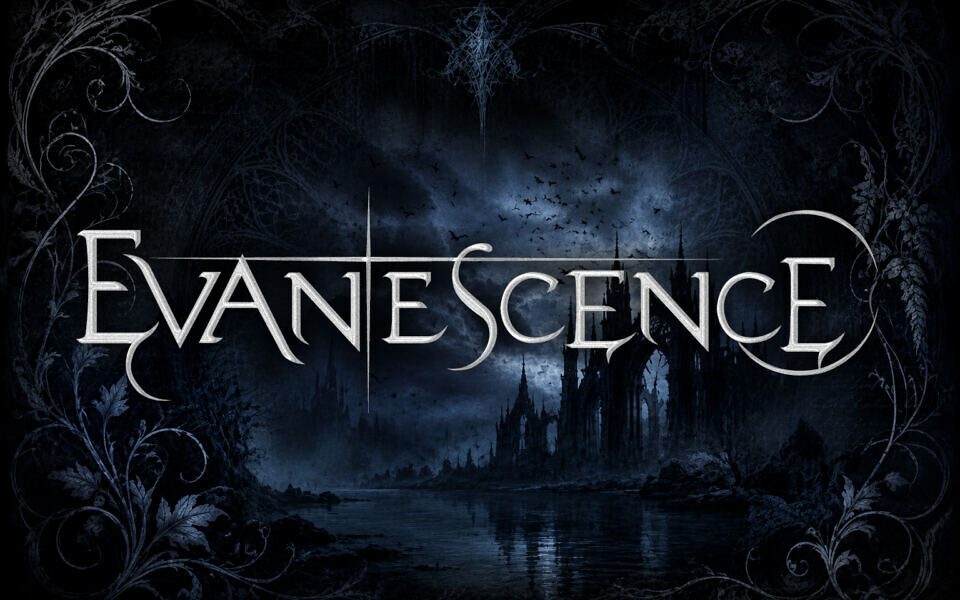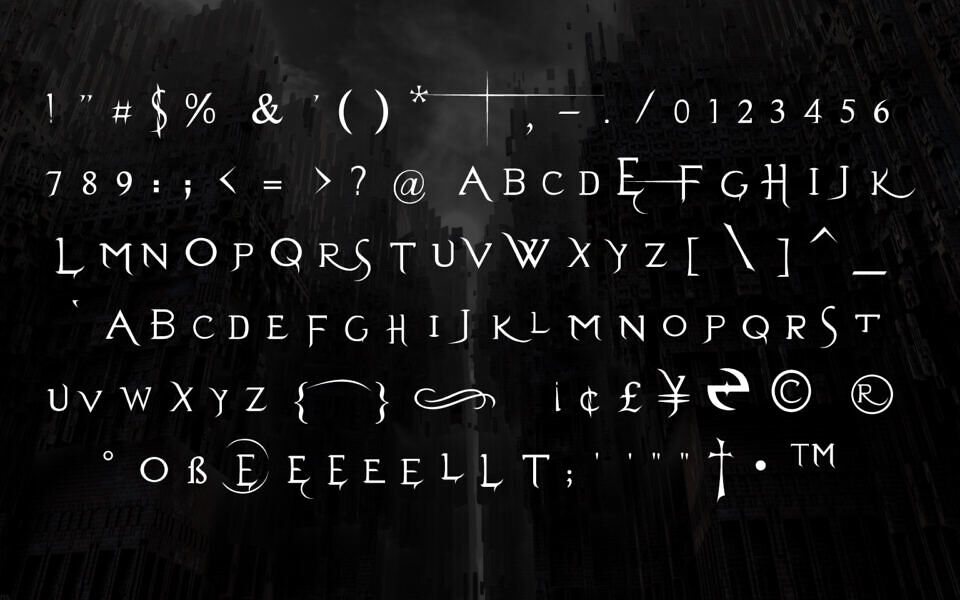
Evanescent Font
Evanescent is a striking, gothic-inspired display font created by fans to replicate the iconic branding of the rock band Evanescence. Characterized by sharp, thorn-like serifs, dramatic sweeping swashes, and elegant, slender strokes, it perfectly captures a dark, ethereal aesthetic.
The typeface features unique decorative glyphs—including stylized alternates like elongated cross-symbols and sweeping curves—making it the ultimate choice for atmospheric music branding, band merchandise, and gothic-themed designs. It includes two versions, Regular and Prespaced.